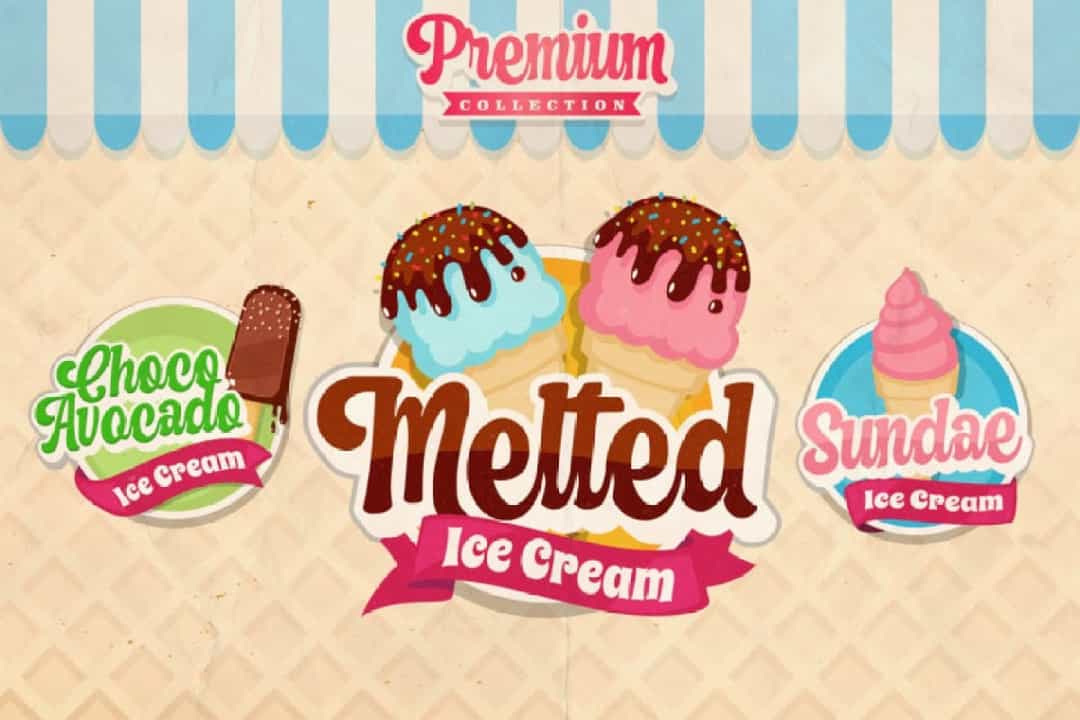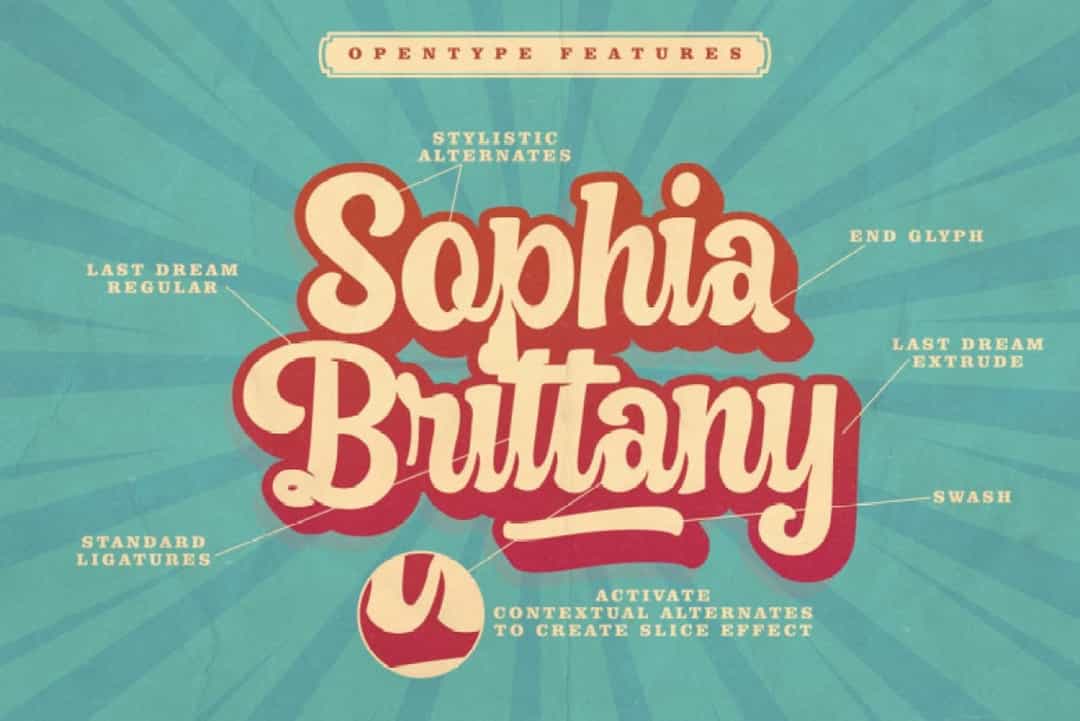
Last Dream is a beautiful layered font based on Vintage & Retro Script which will give your work that quintessential vintage look that is so popular these days. Some of the open type features that give a slice like appearance are used in the creation of Last Dream where extrude and regular settings were employed to come up with the desired slice effect.